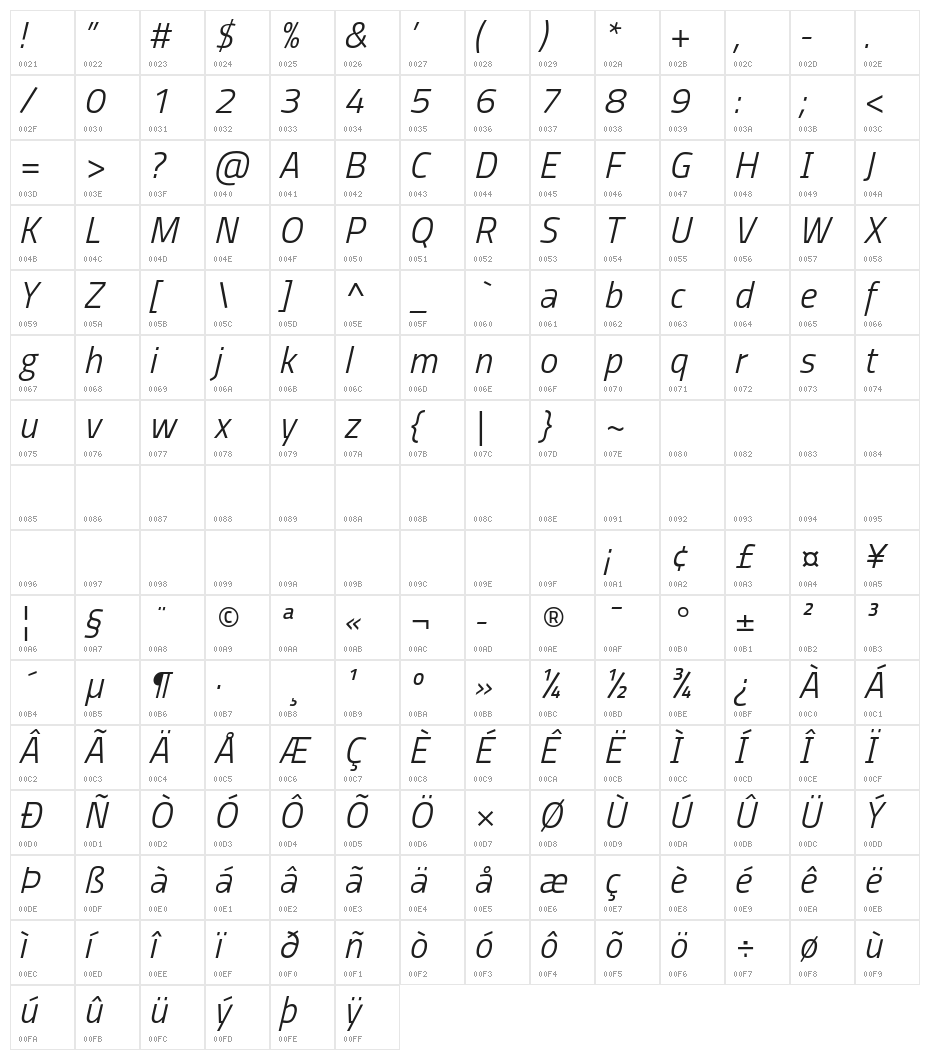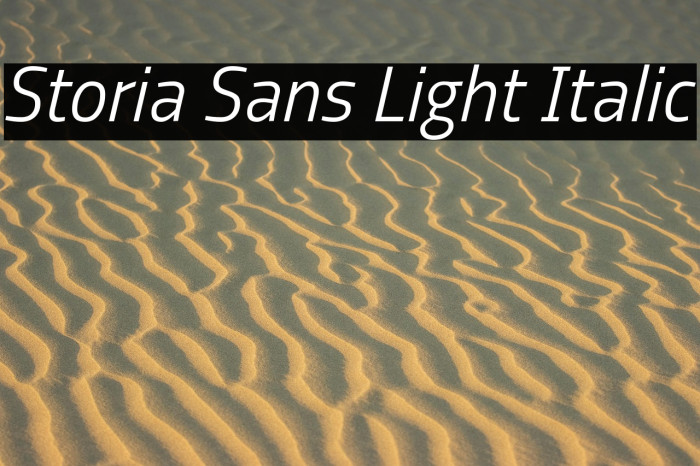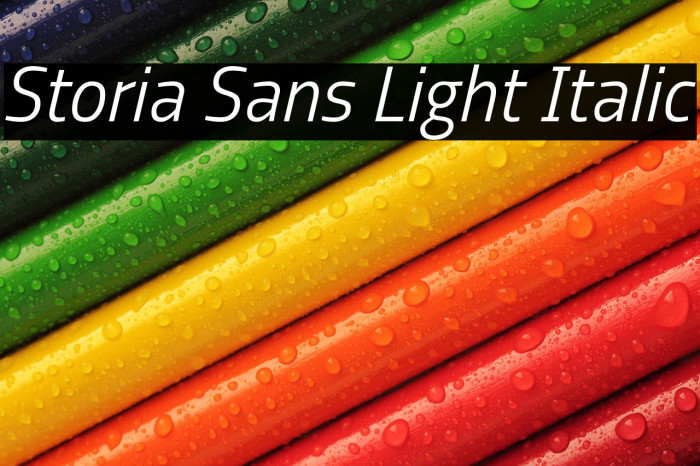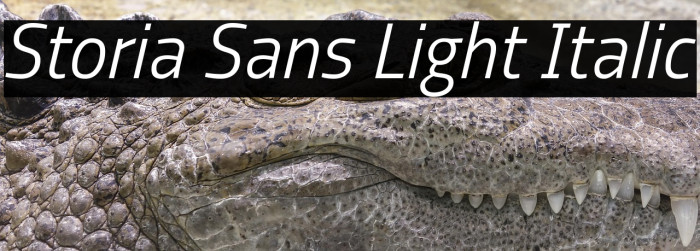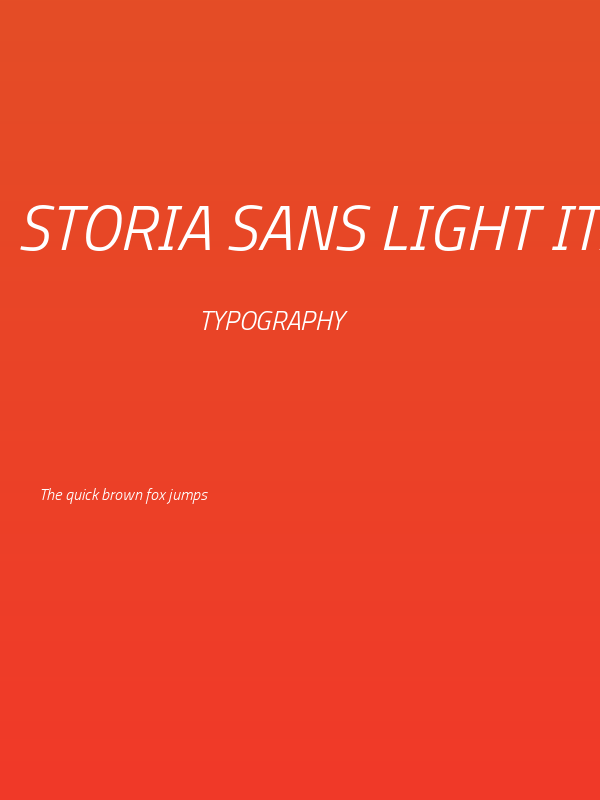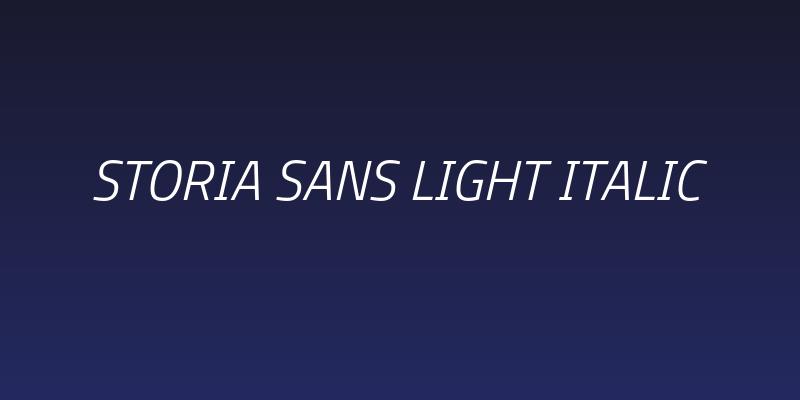
Storia Sans Light Italic Font
Storia Sans Light Italic Description
This typeface features a sleek and modern sans-serif design with a light weight and italic style. The characters are elegantly slanted, providing a sense of motion and fluidity. The strokes are consistent and smooth, contributing to a clean and professional appearance. The font maintains a uniform thickness throughout, with minimal contrast between the strokes. Its simplicity and clarity make it highly legible, suitable for both digital and print media. The character spacing is normal, ensuring readability while maintaining a stylish and contemporary look.
| Proposed Projects | Ideal for modern branding, editorial design, websites, and minimalist posters. |